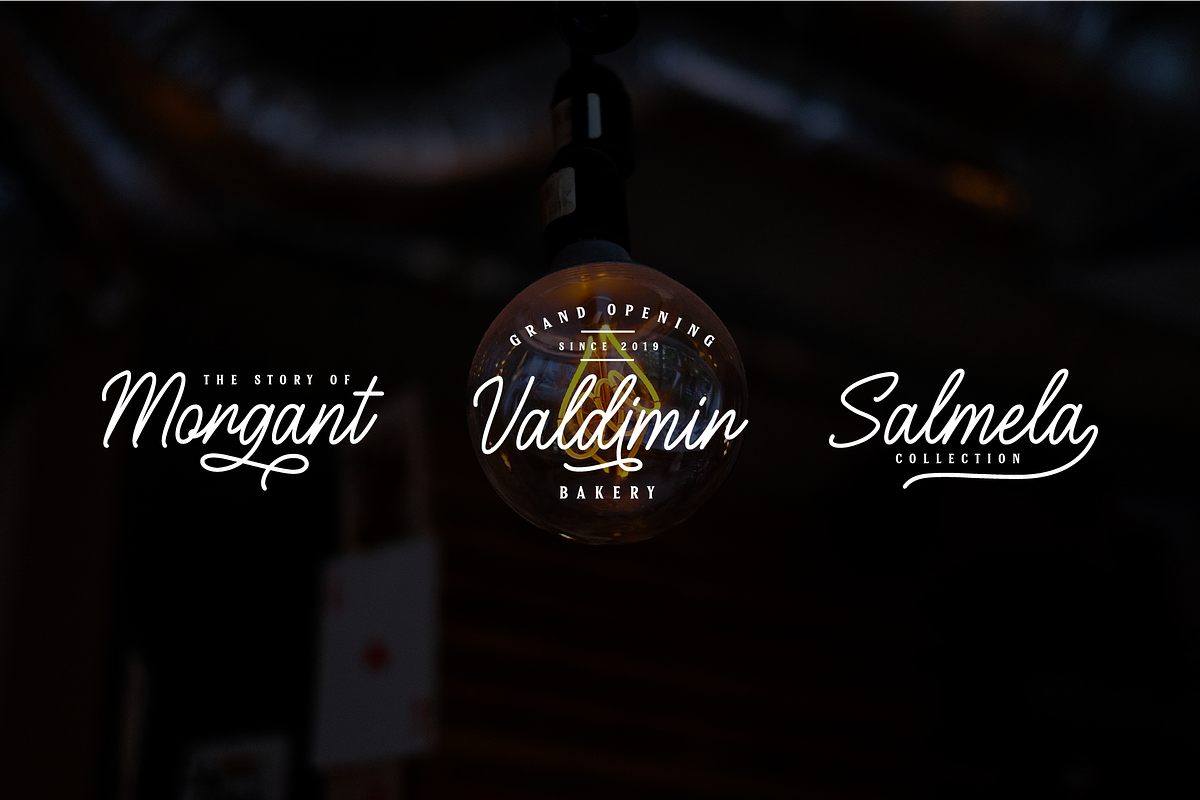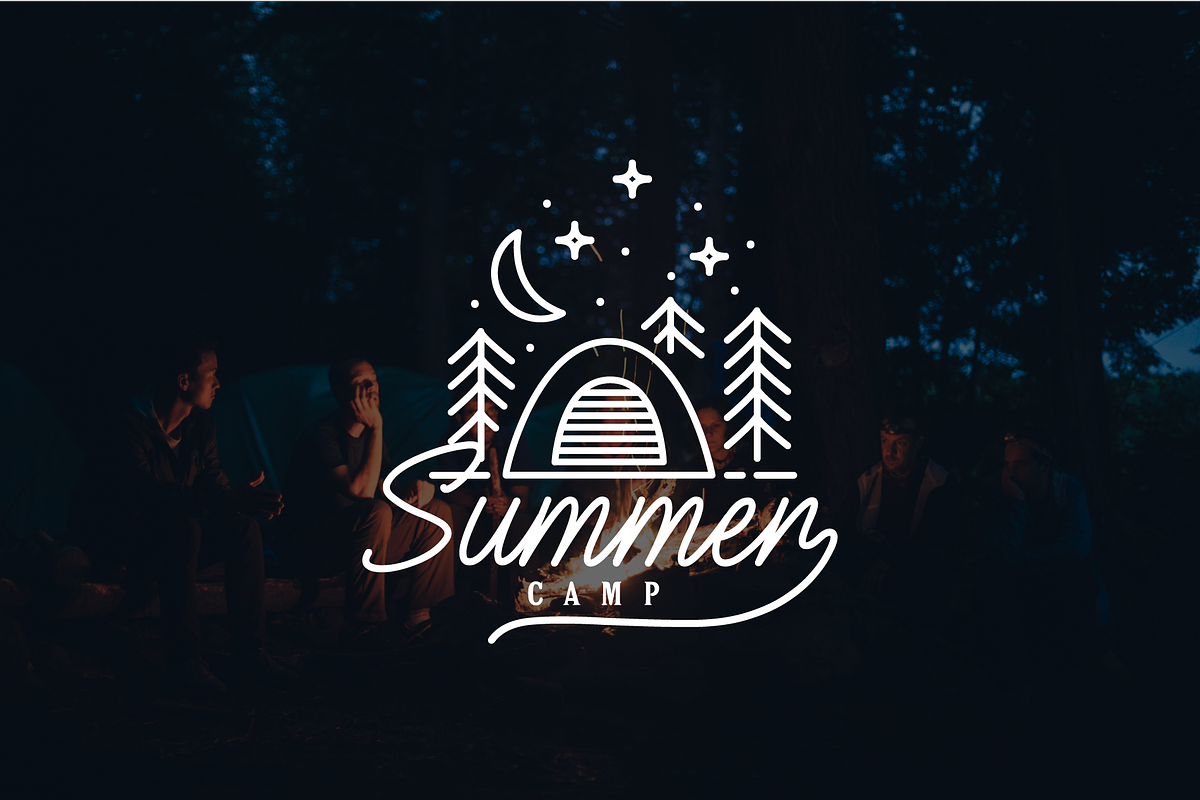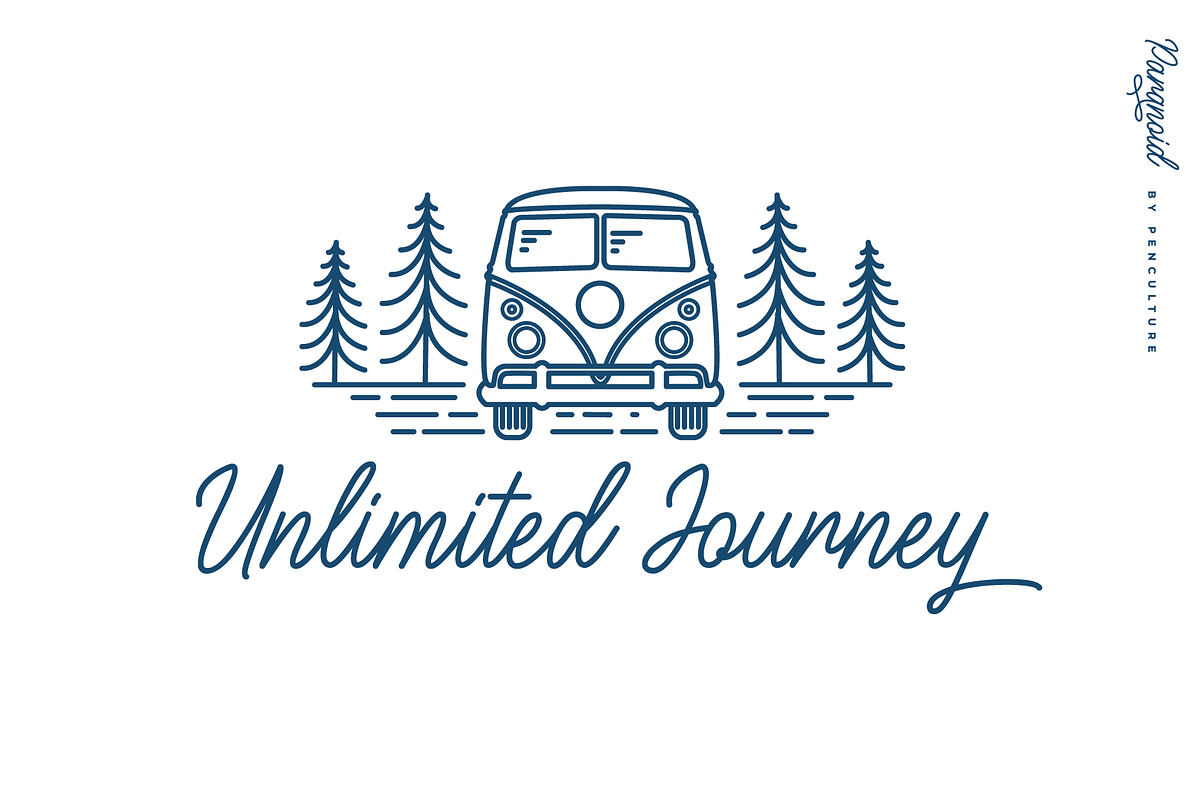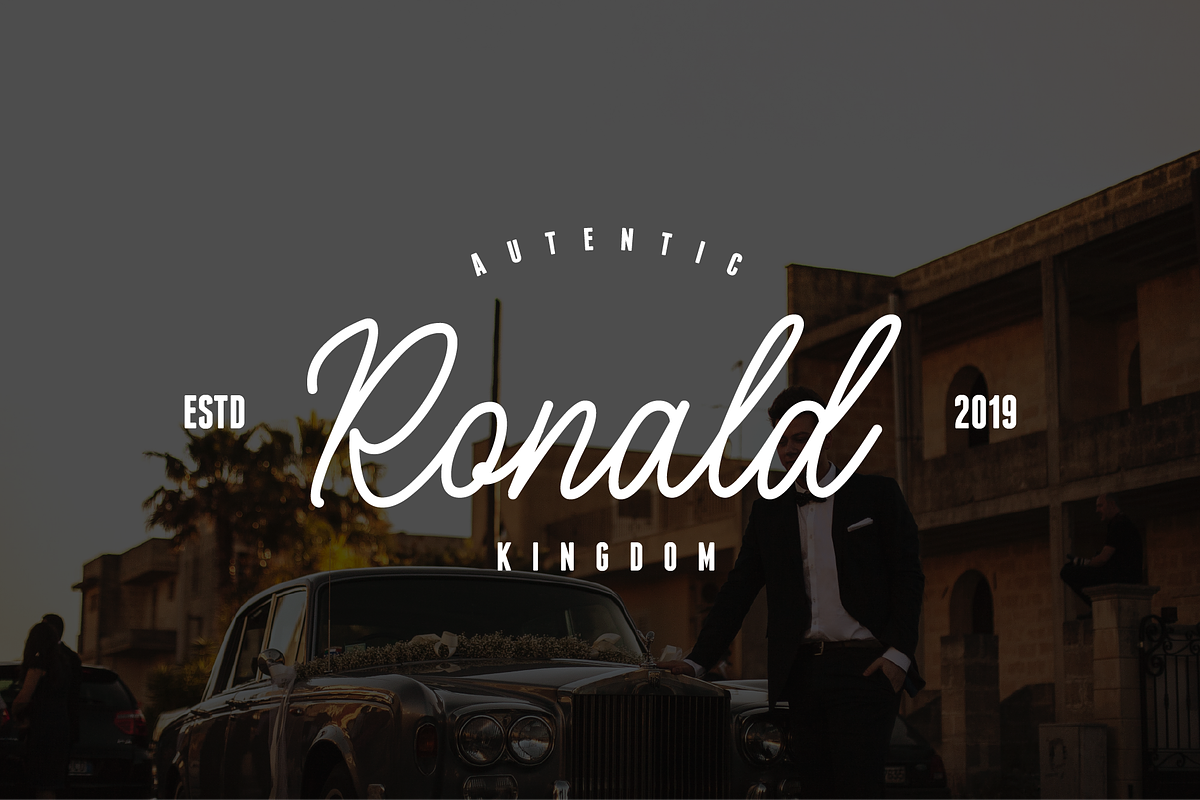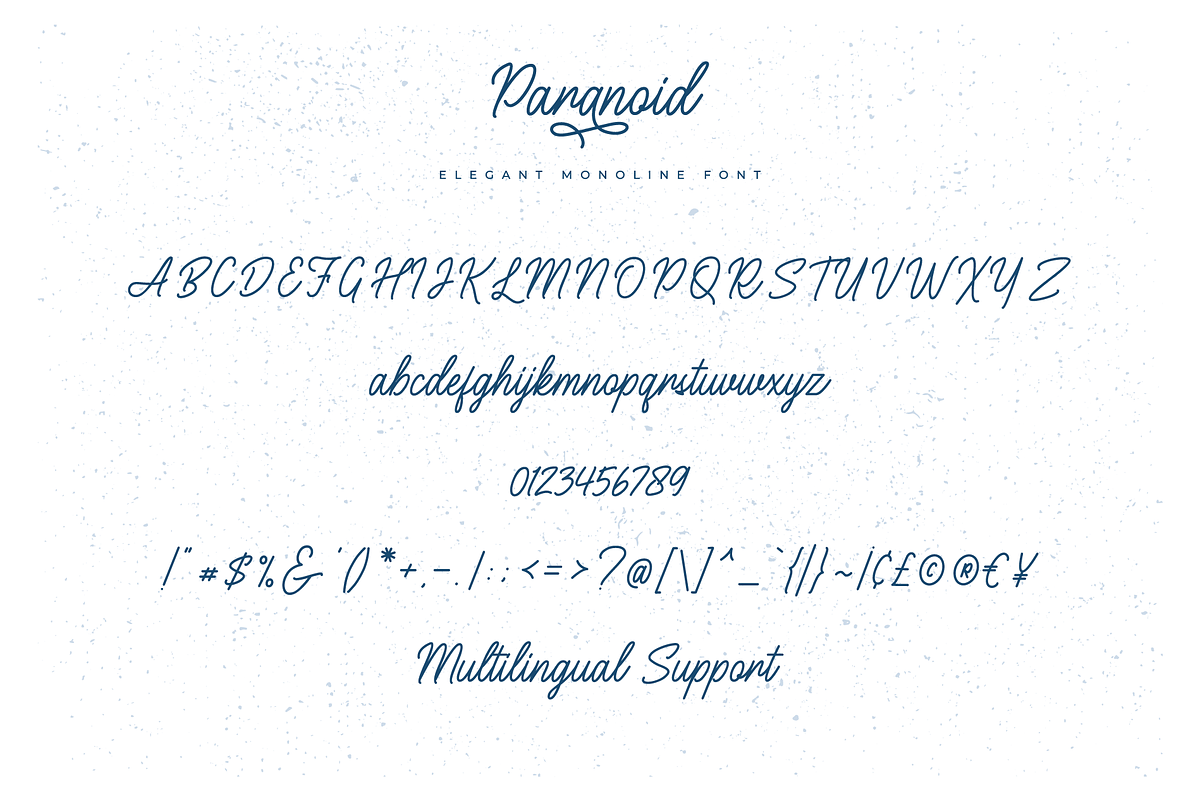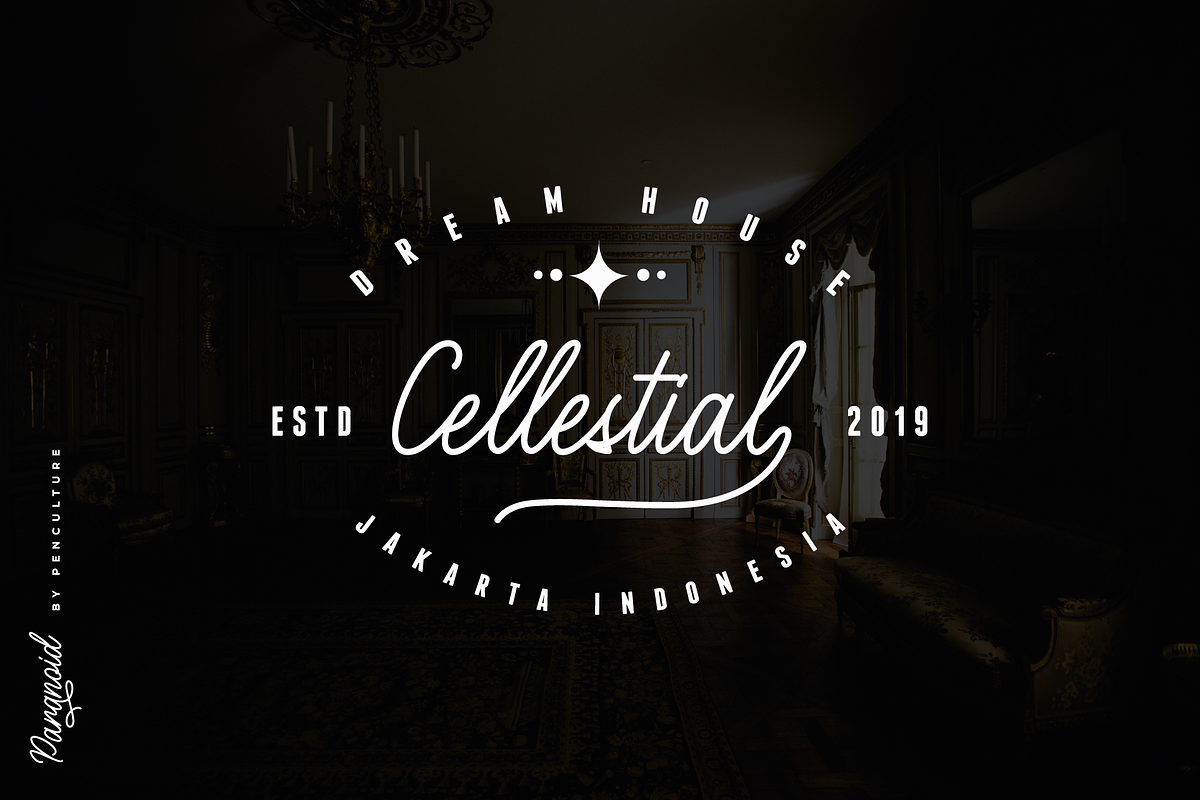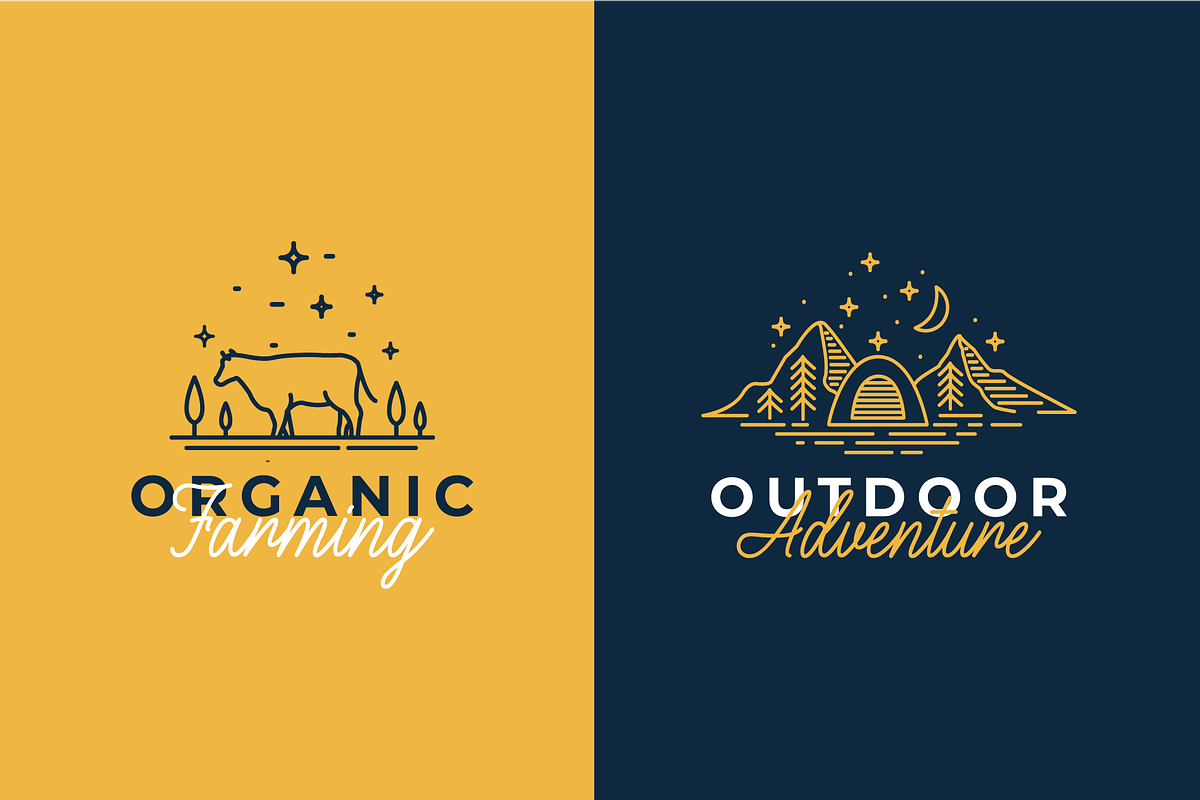
Paranoid - Elegant Monoline Font
Paranoid is elegant mono line font that comes with various kinds of alternate that will make design very awesome and elegant
Uppercase and lowercase